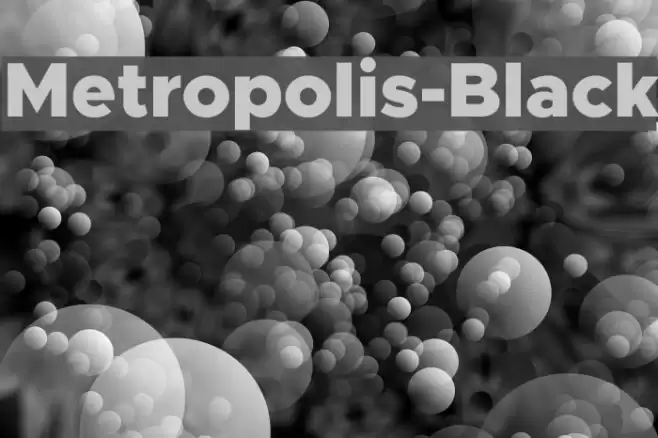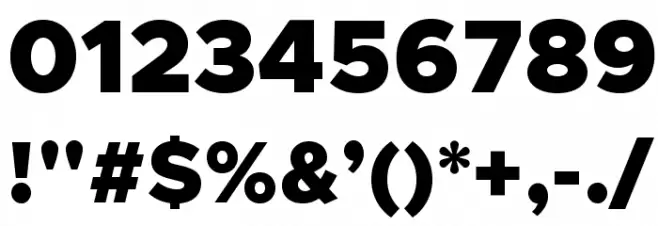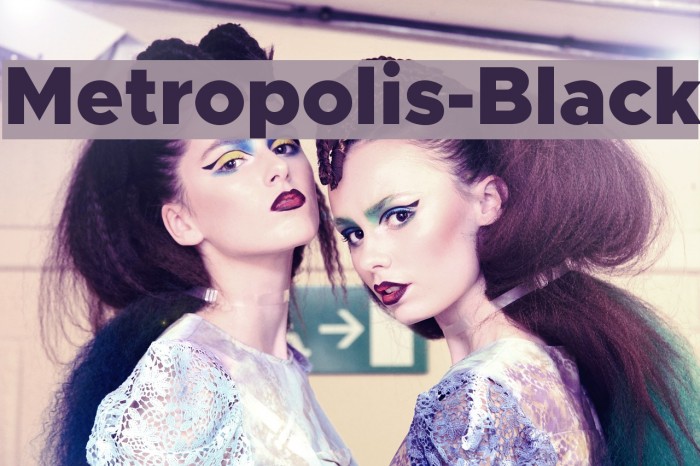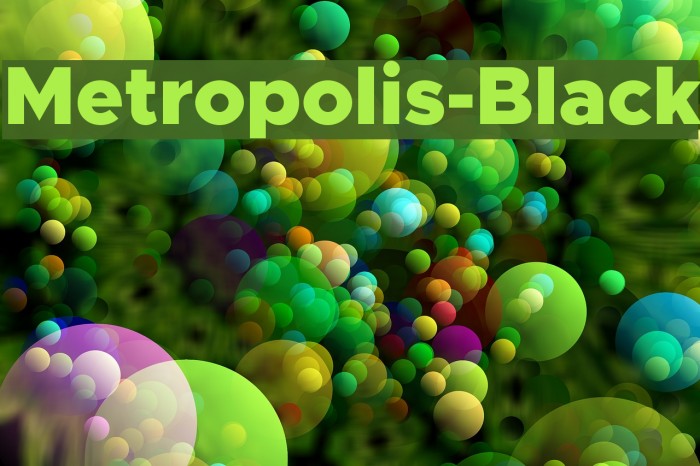
This font features a bold and modern sans-serif style with clean, geometric lines and a strong presence. The uppercase and lowercase letters are well-balanced, with consistent stroke widths that convey a sense of stability and confidence. The numerals are clear and easy to read, making them suitable for various applications. The special characters are designed to complement the overall aesthetic, maintaining the font's bold and assertive look. Its simplicity and clarity make it versatile for both digital and print media.
A bold, modern sans-serif font with clean, geometric lines from Uncategorized fonts.
- Proposed Projects: Ideal for branding, advertising, headlines, and digital interfaces where a strong, modern impression is desired.
- Use Case: Headlines, Logos, Branding